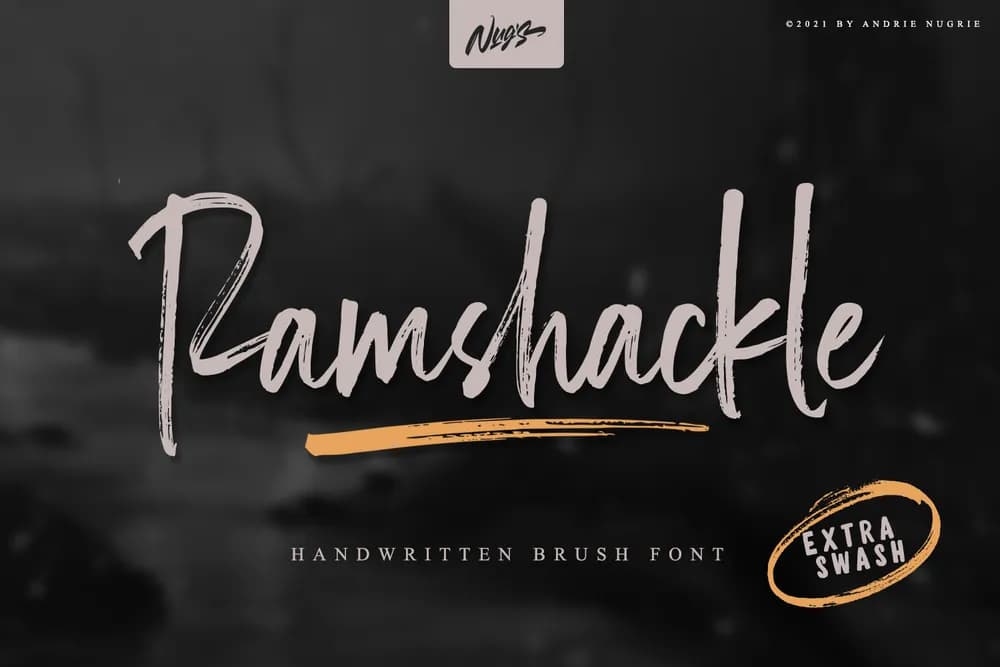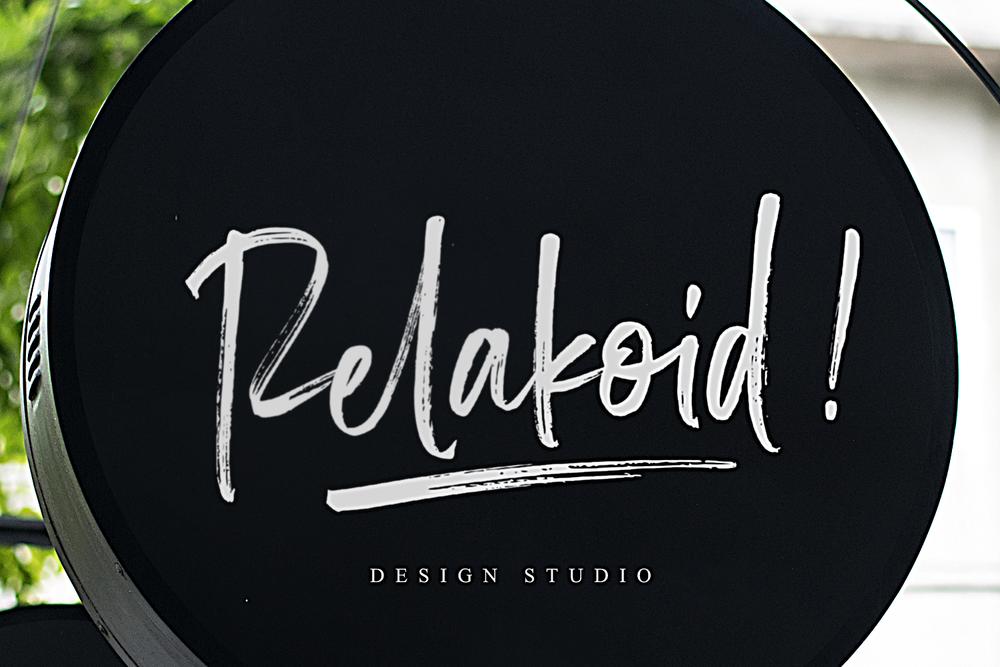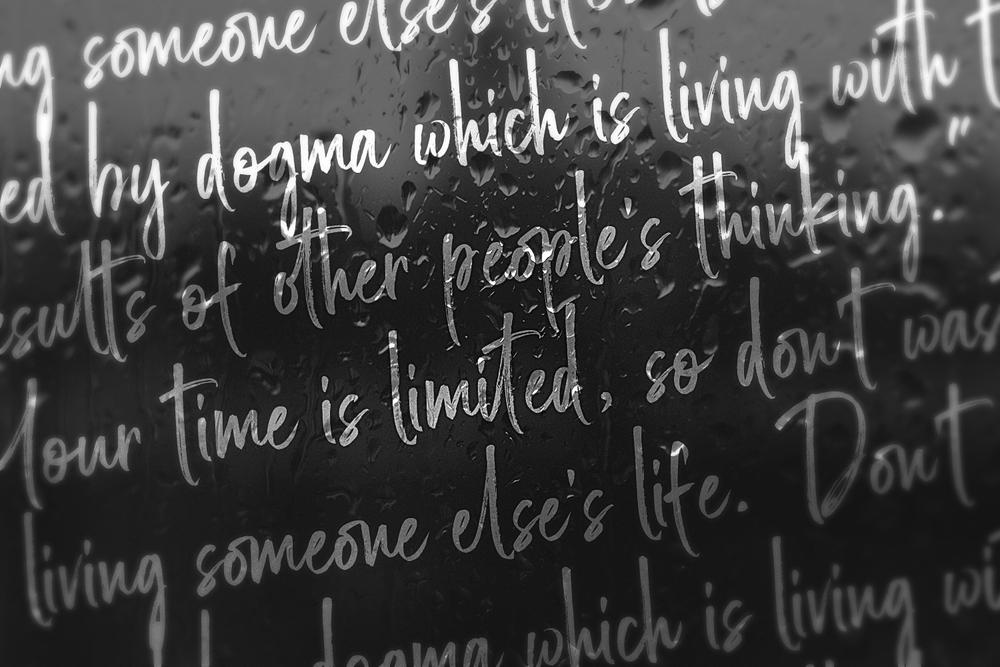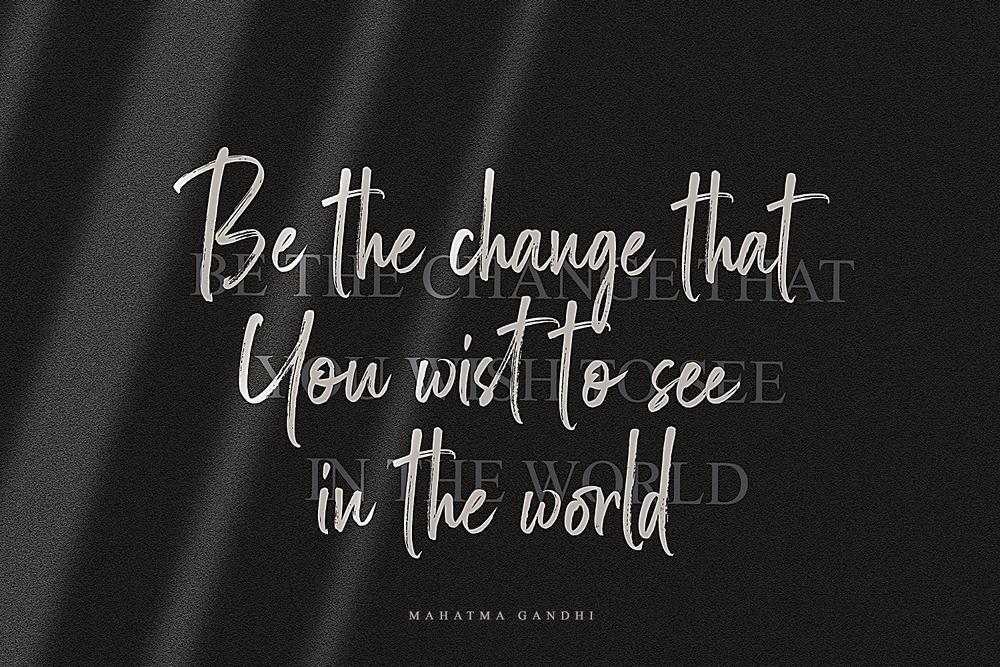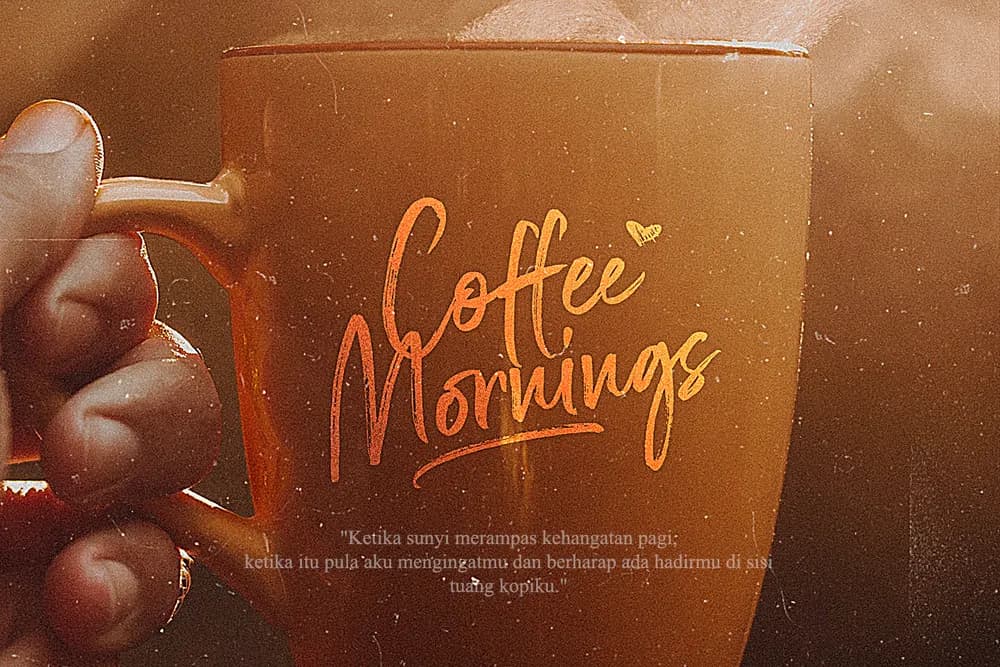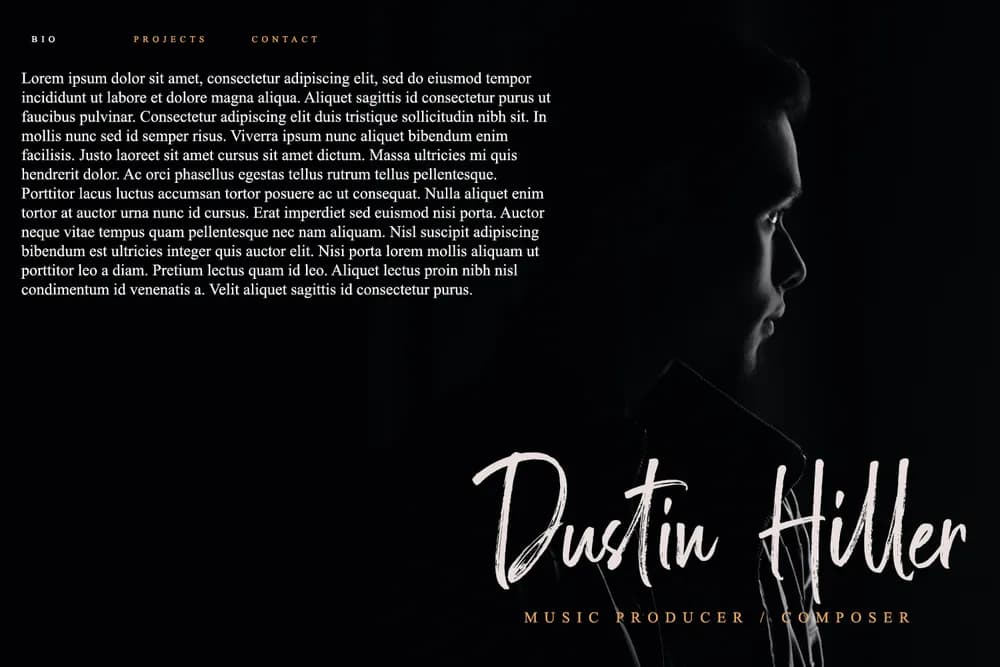
Introducing the Ramshacle. It's modern brush font with beautiful and natural brush stroke that perfect for logo, poster, product, apparel, packaging and many more. This font come with full all caps, number, punctuation. this font very easy to use, so what you waiting for I really hope you enjoy it - please do let me know what you think, comments & likes are always hugely welcomed and appreciated. More importantly, please don't hesitate to drop me a message if you have any issues or queries. Thank you